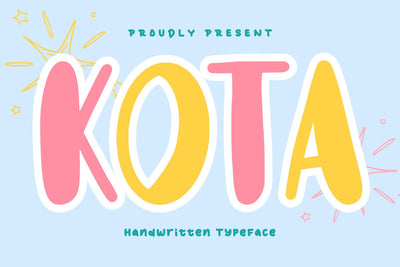
Kota - Handwritten Typeface
Hi, Introducing Kota - Handwritten Typeface
A handwritten typeface font with a cute and fun style, this font is cool for mugs, t-shirts, tote bags, greeting cards, quotes, etc.